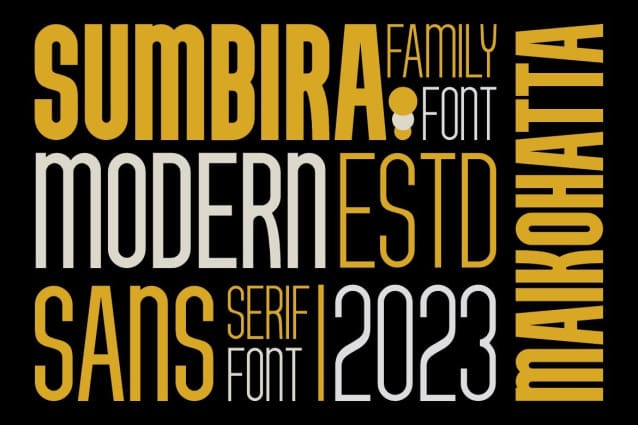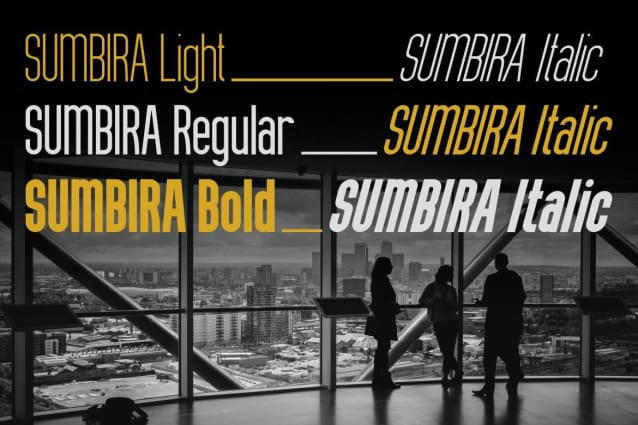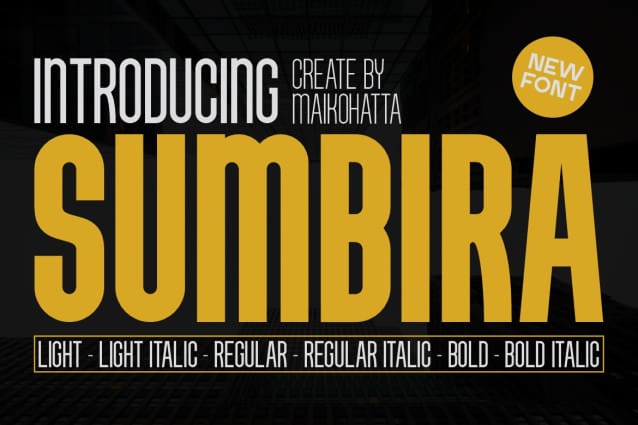
Sumbira Font
Sumbira Font Family a Sans-Serif font family available in different styles is a very versatile choice for graphic design and displaying clean, modern text. This Sans-Serif font family offers flexibility in graphic design, and its different styles allow you to customize the appearance of the text according to the needs of your project. With different combinations you can create attractive and easy-to-read text displays in different contexts.